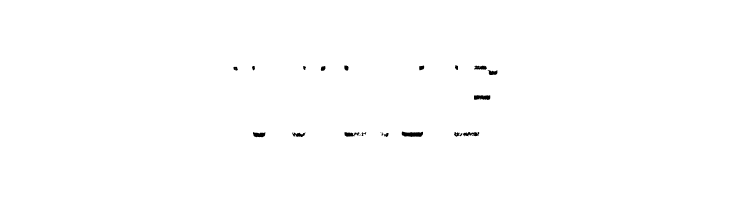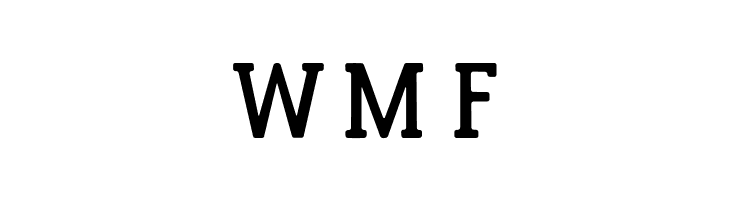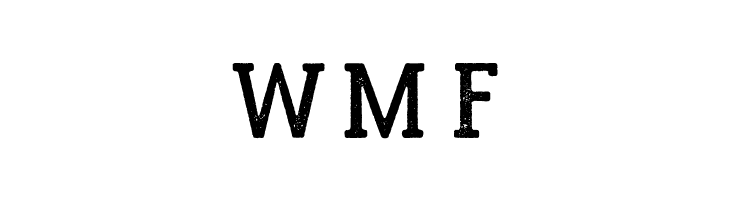
• LumberjackRoughShadow
A rugged, textured font with shadow effects and a vintage, handcrafted feel.
• LumberjackInlineRough
A rugged, textured font with an inline style and vintage appeal.
• Lumberjack
A bold slab serif font with strong, block-like serifs and a cohesive design.
• LumberjackRough
A bold, textured font with a rustic, handcrafted appearance.